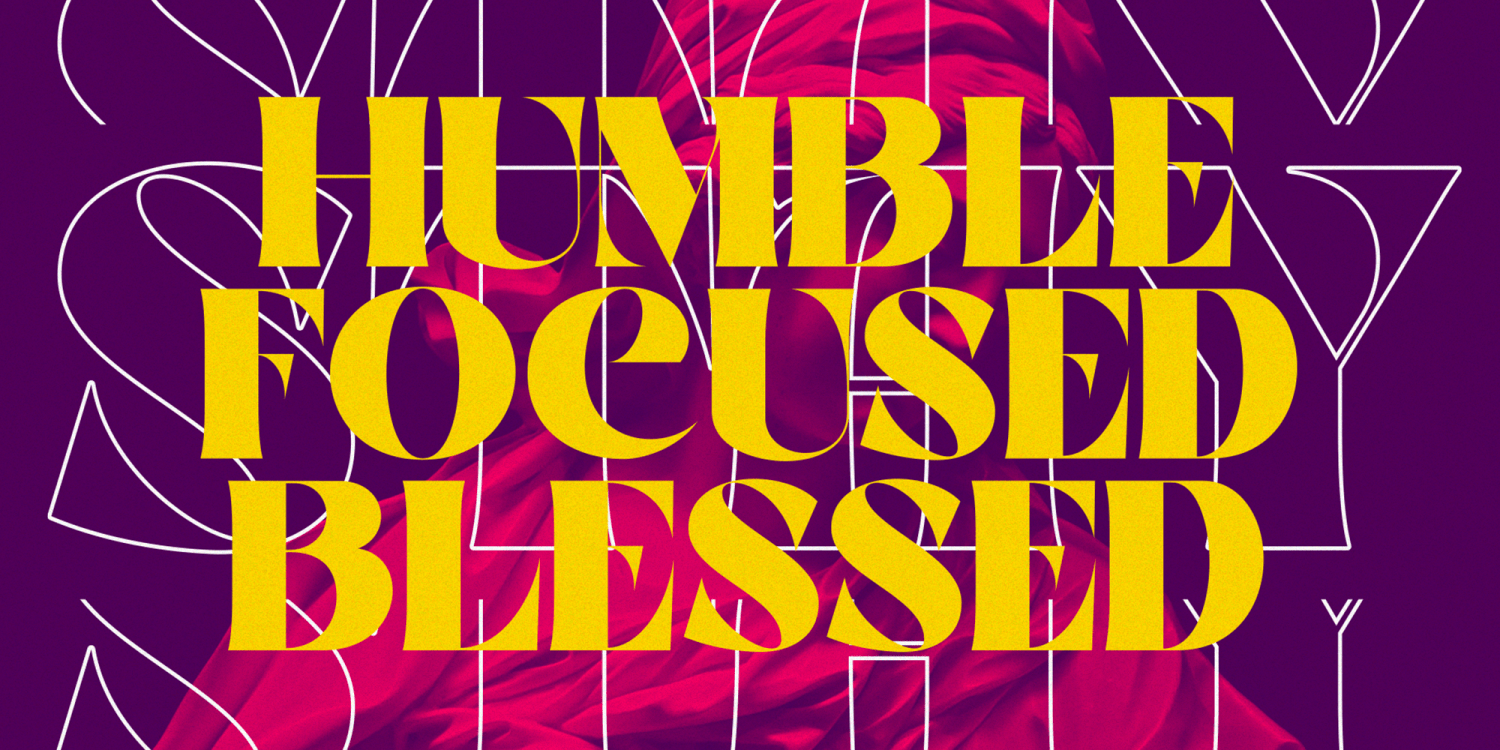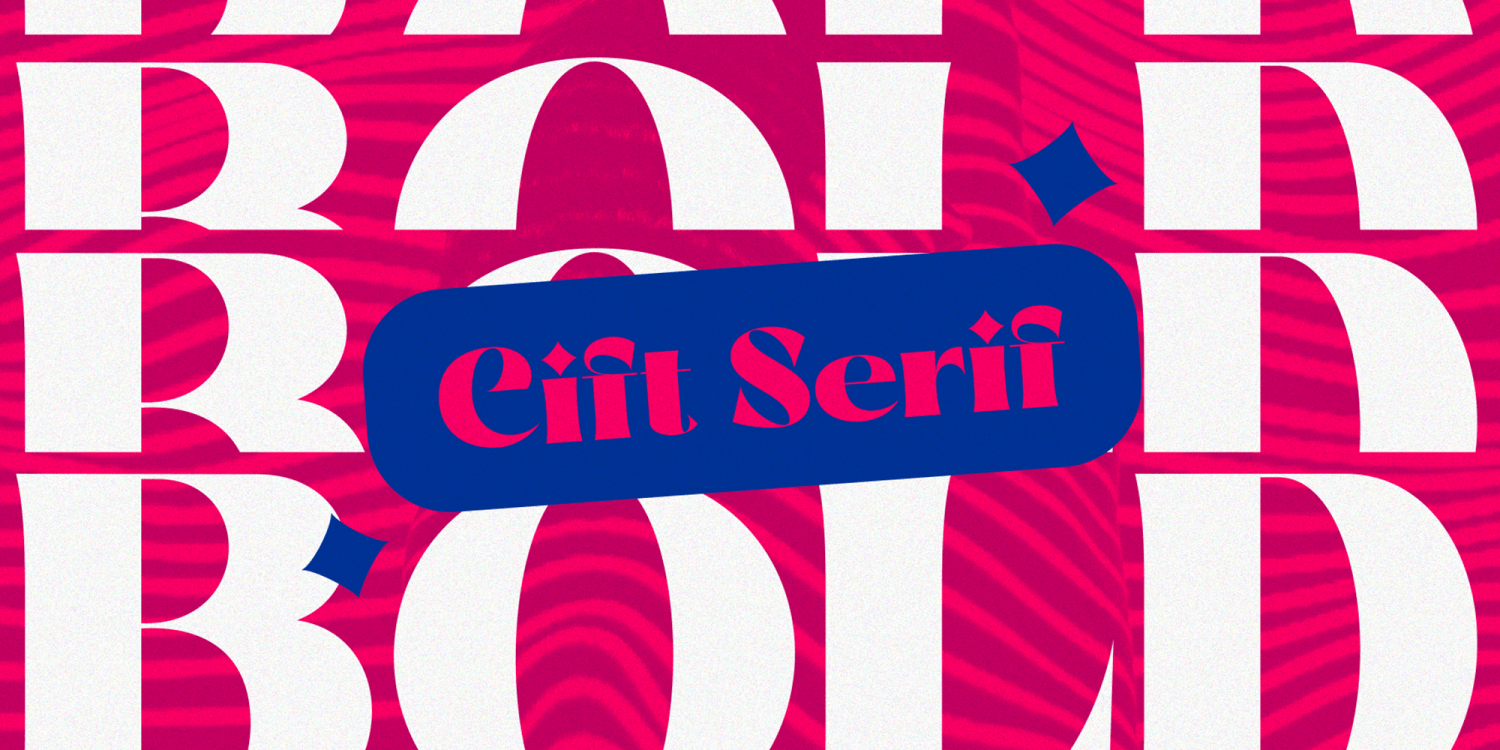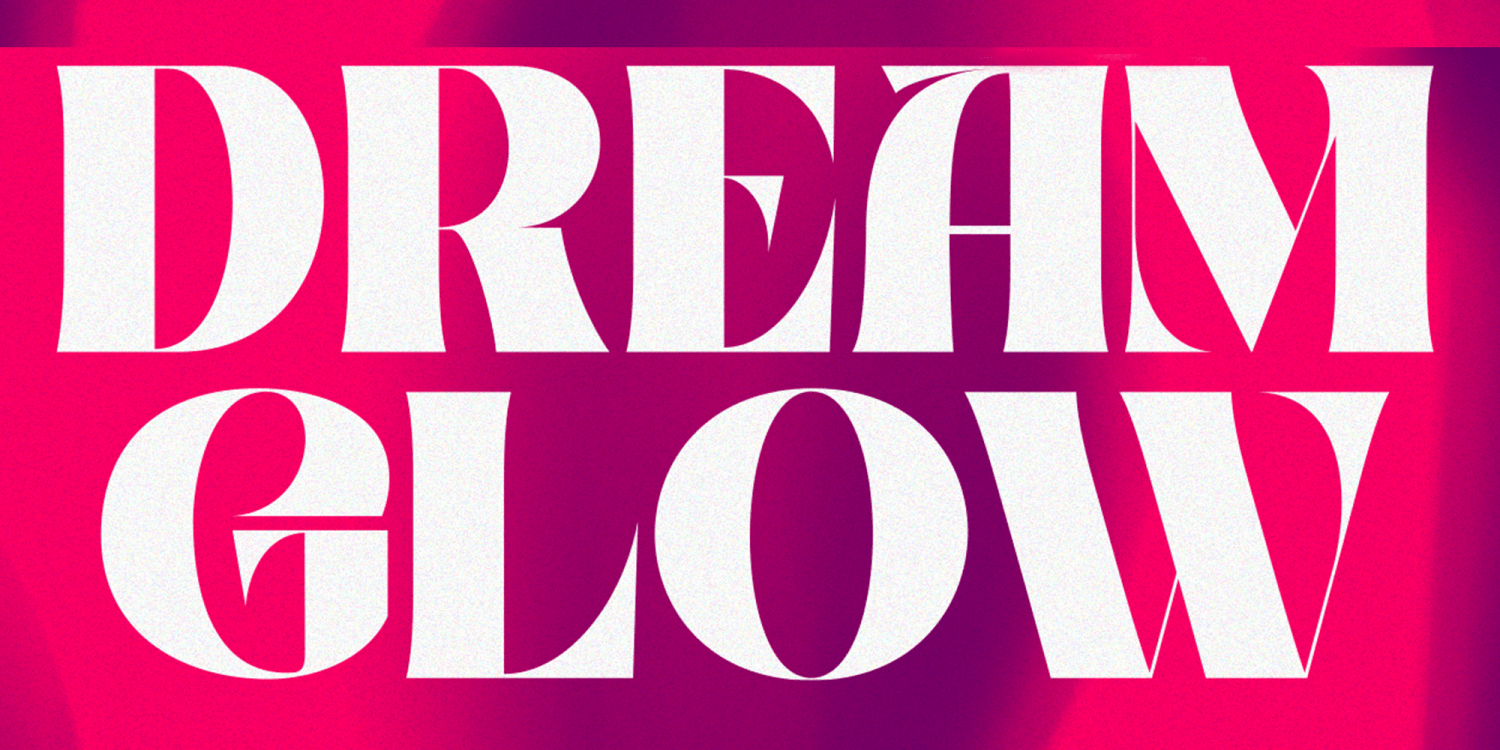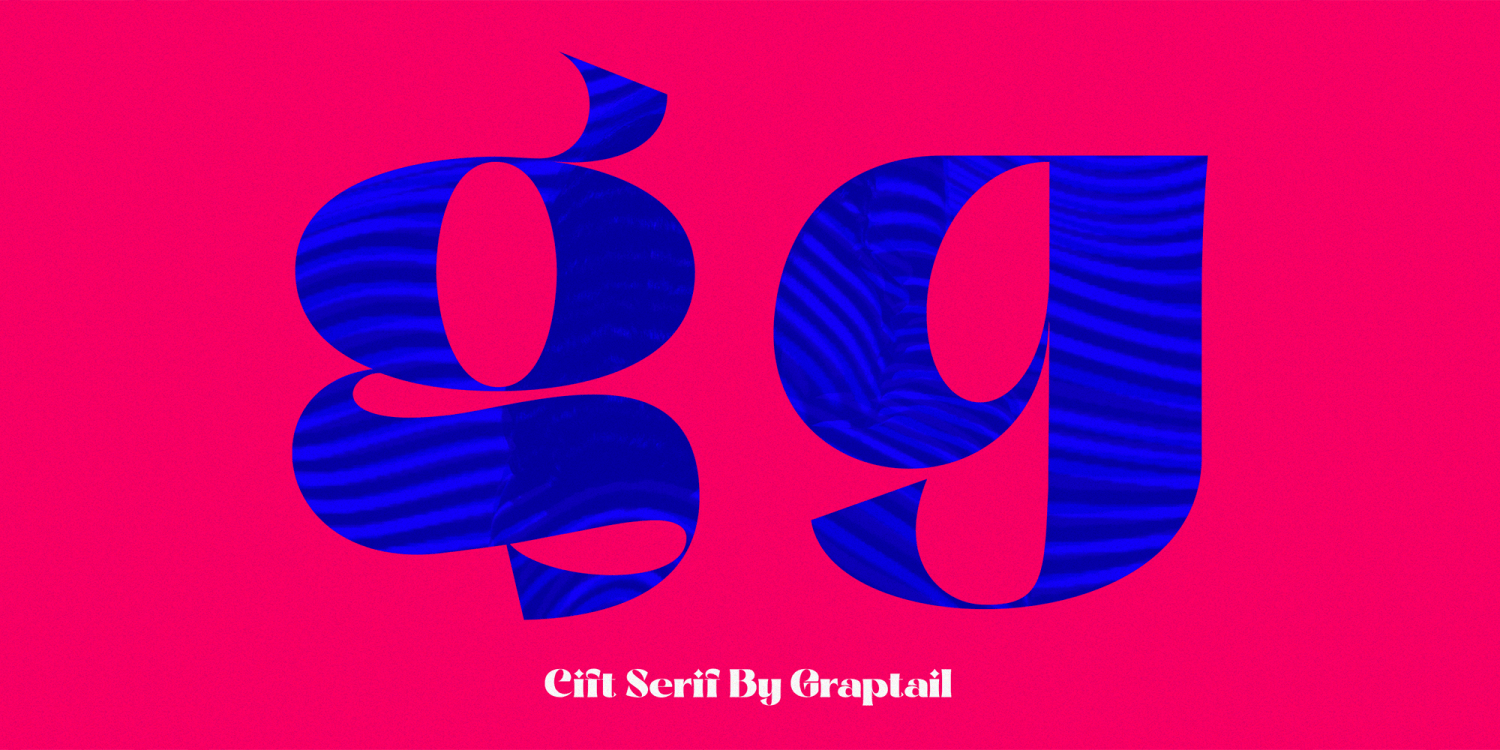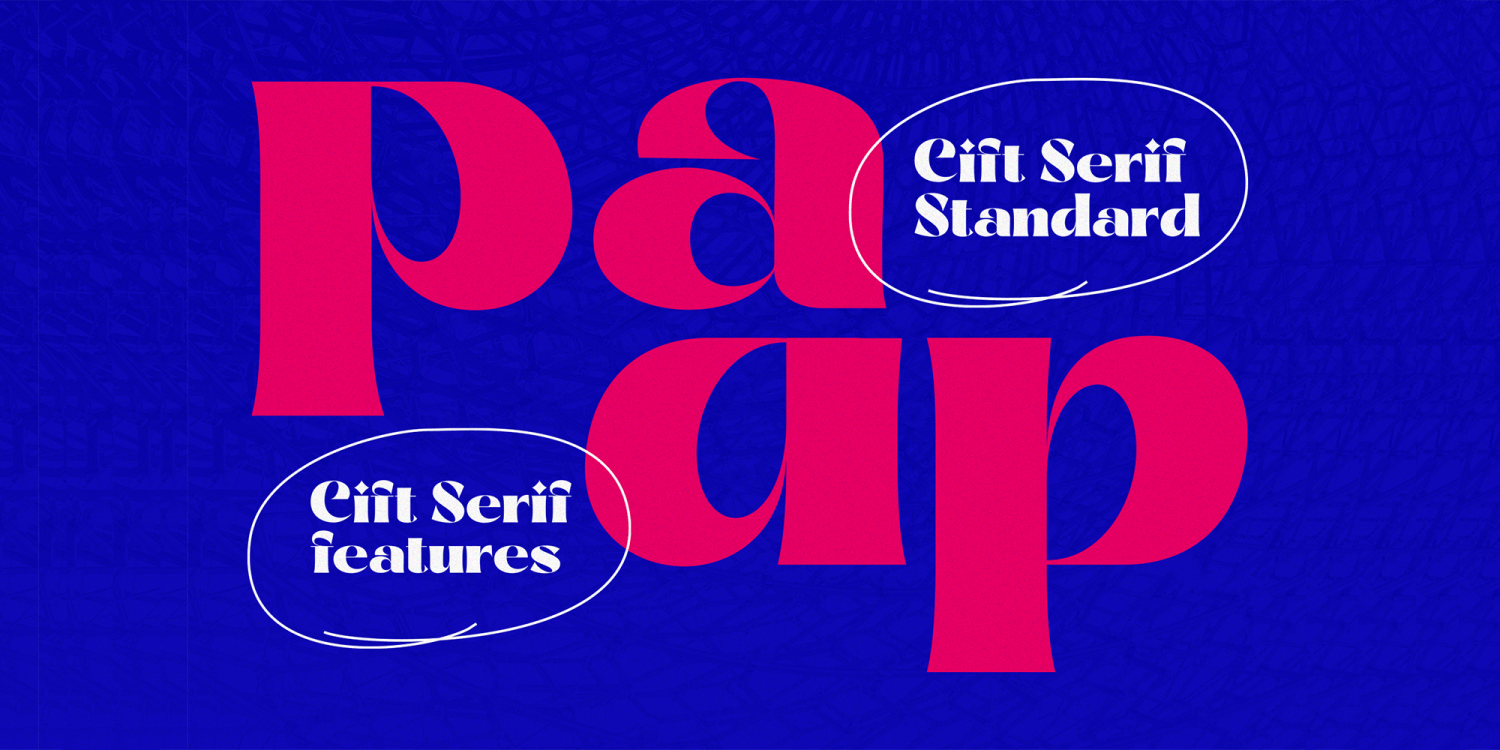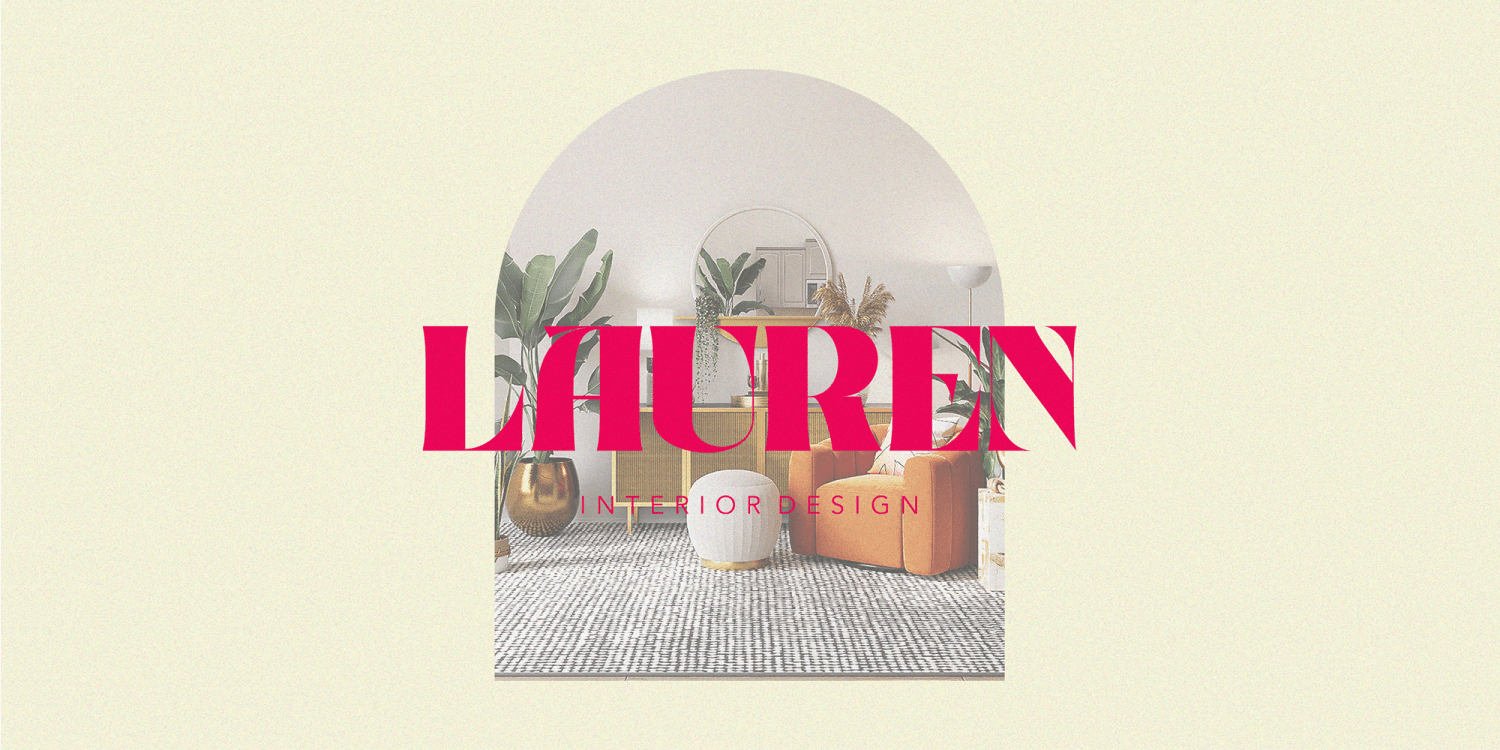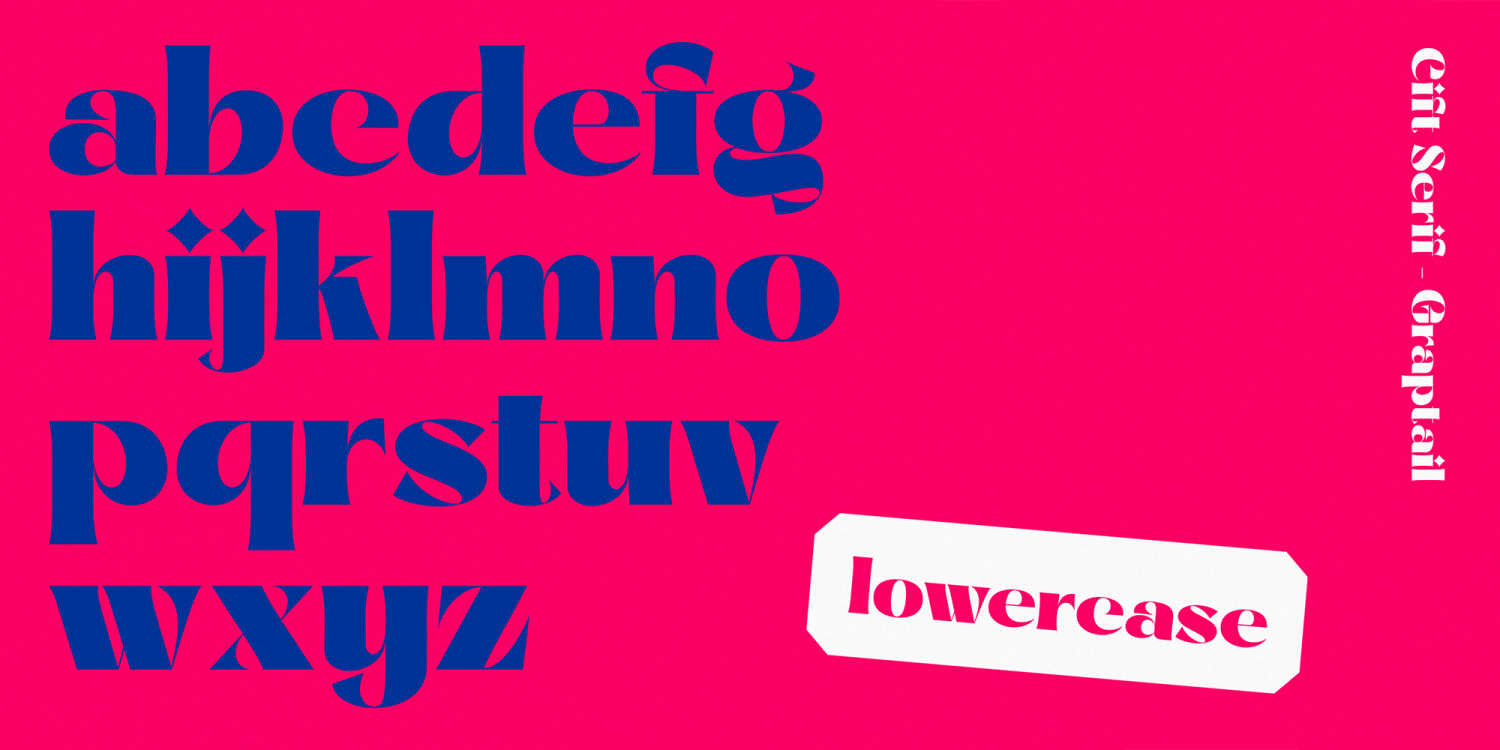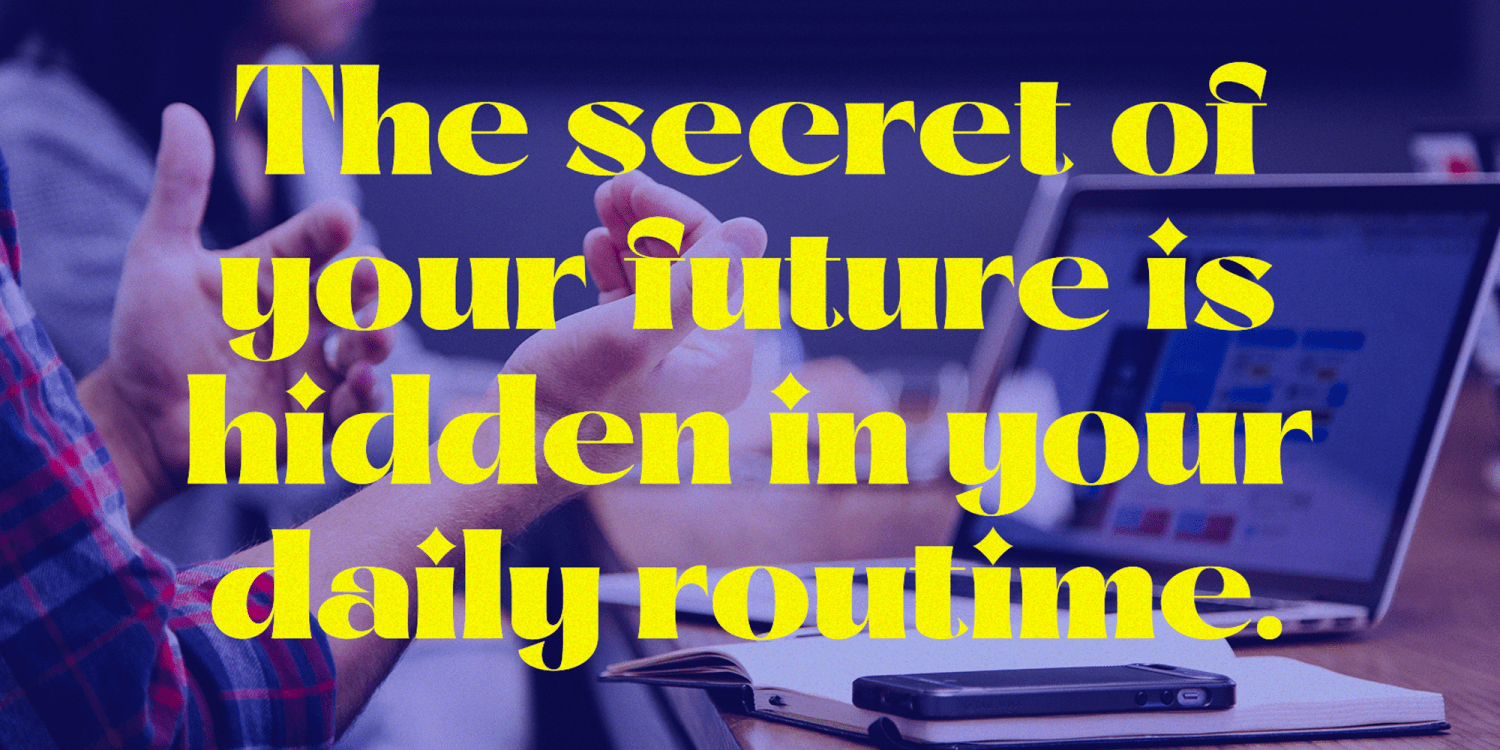
Cift
Font Family by Graptail
Cift Serif is inspired by the work of charming lettering artists with a combination of Old Style Display Bold. Each letter is modified so that the distance, width and weight can give the beauty of the alternates given. A passionate curve gives a touch of beauty to this font.